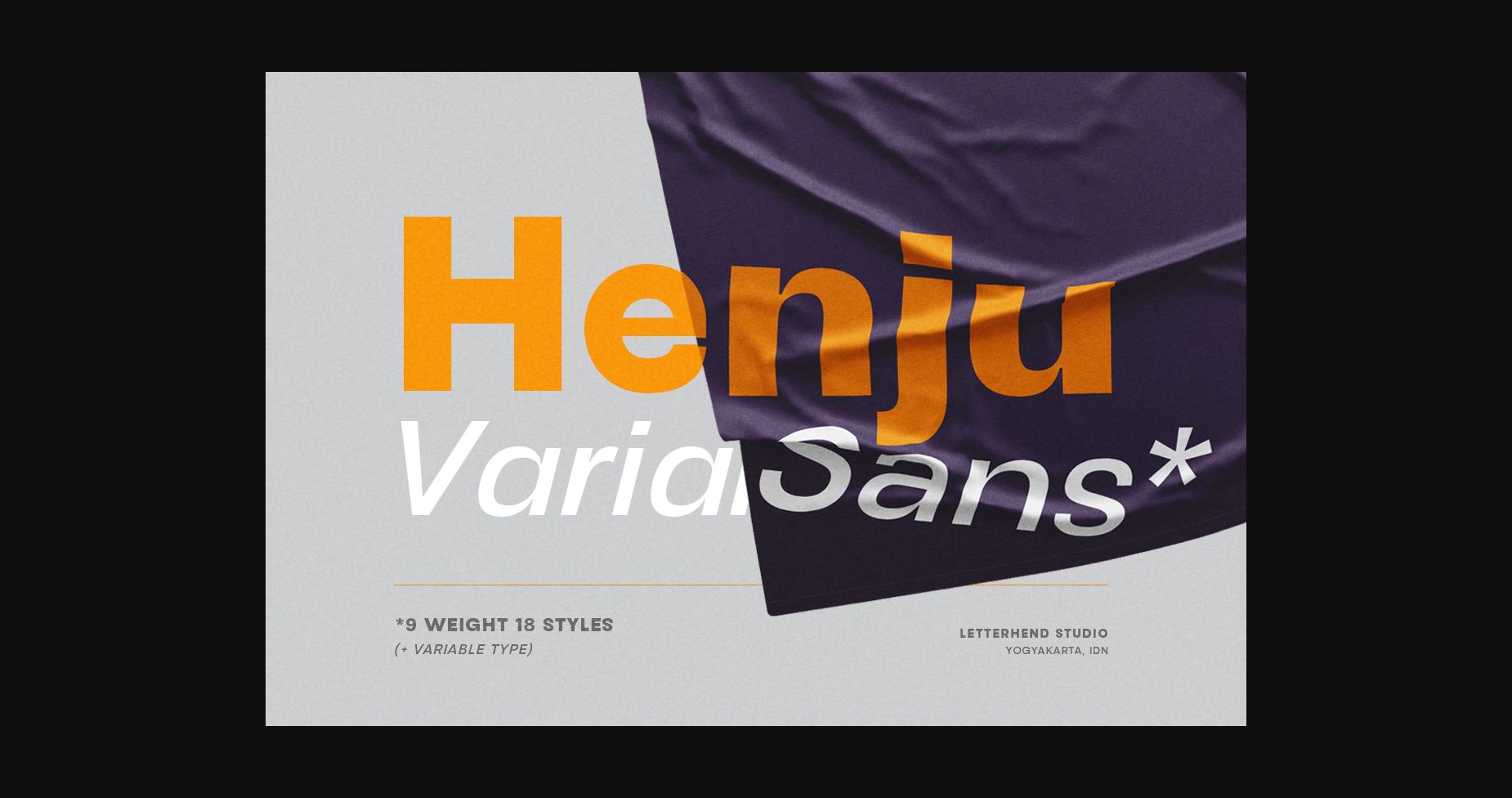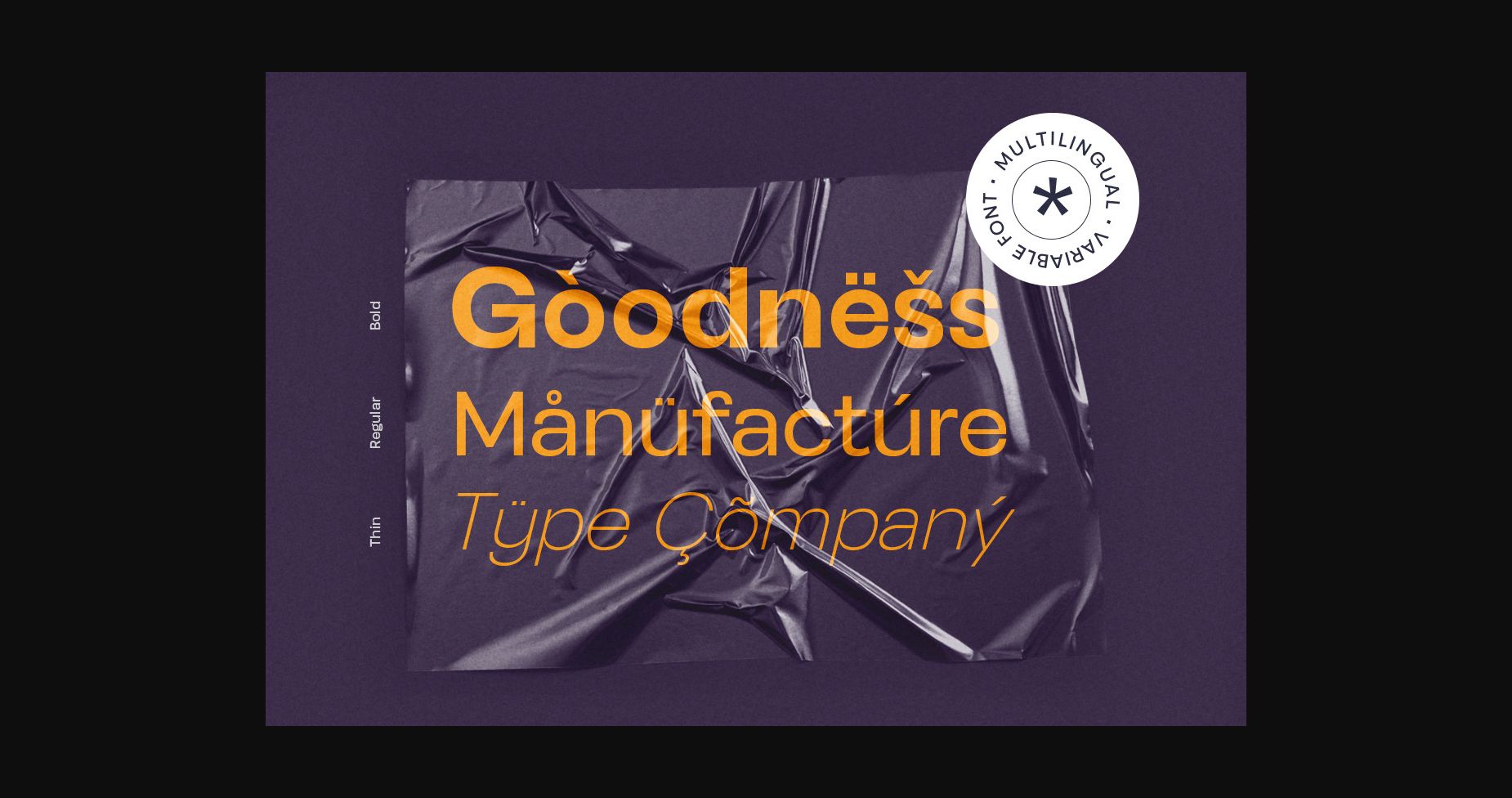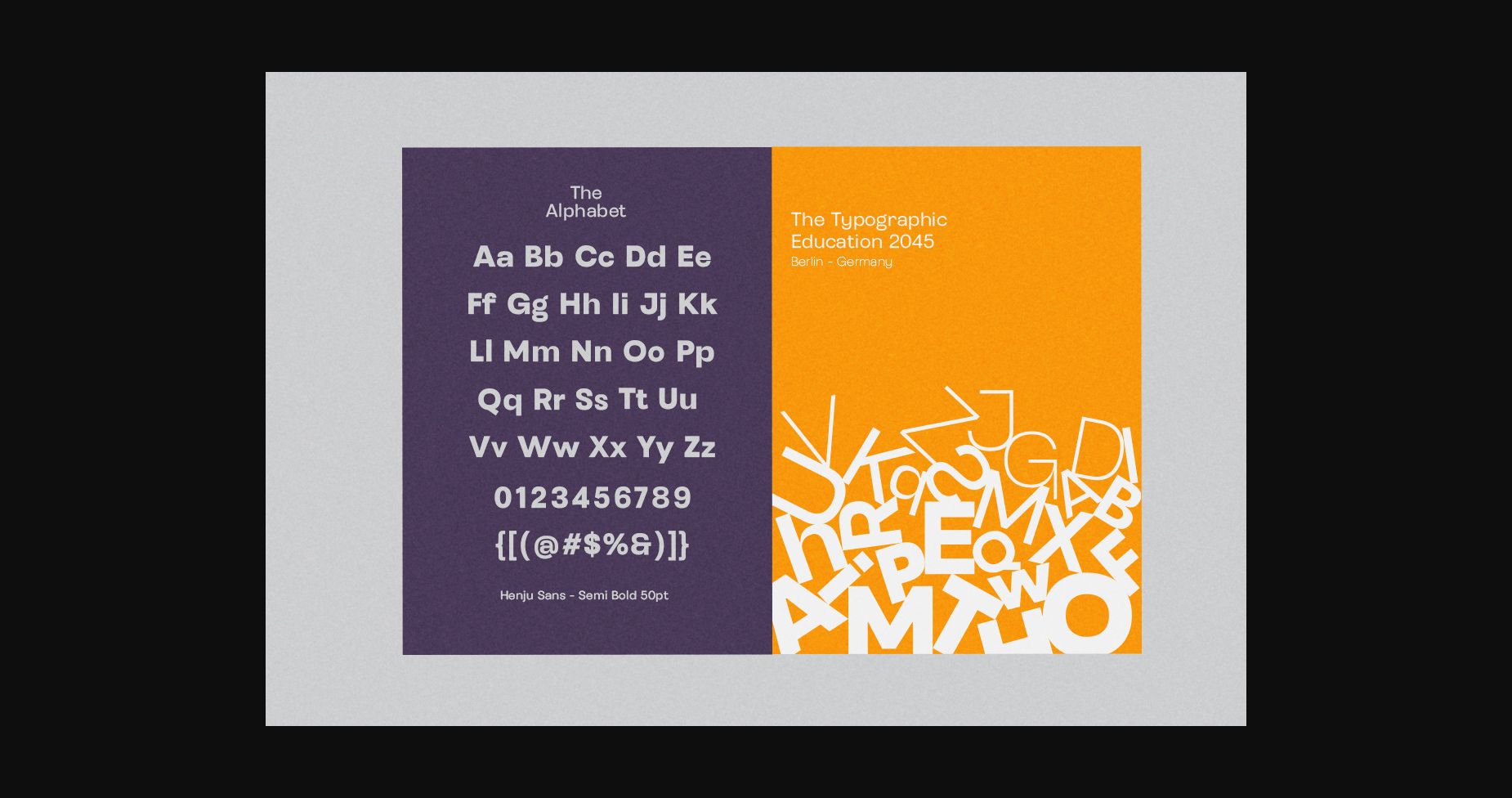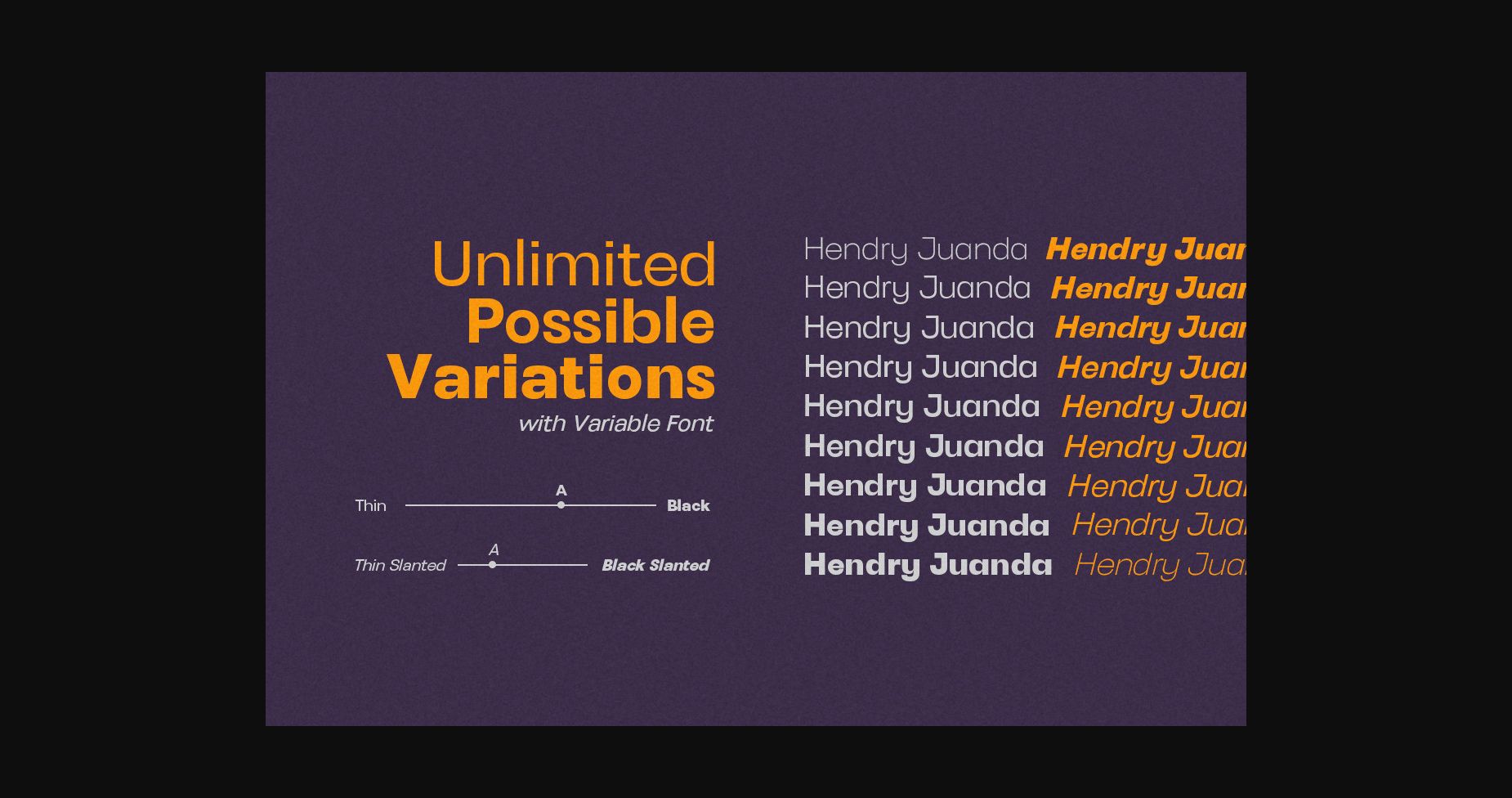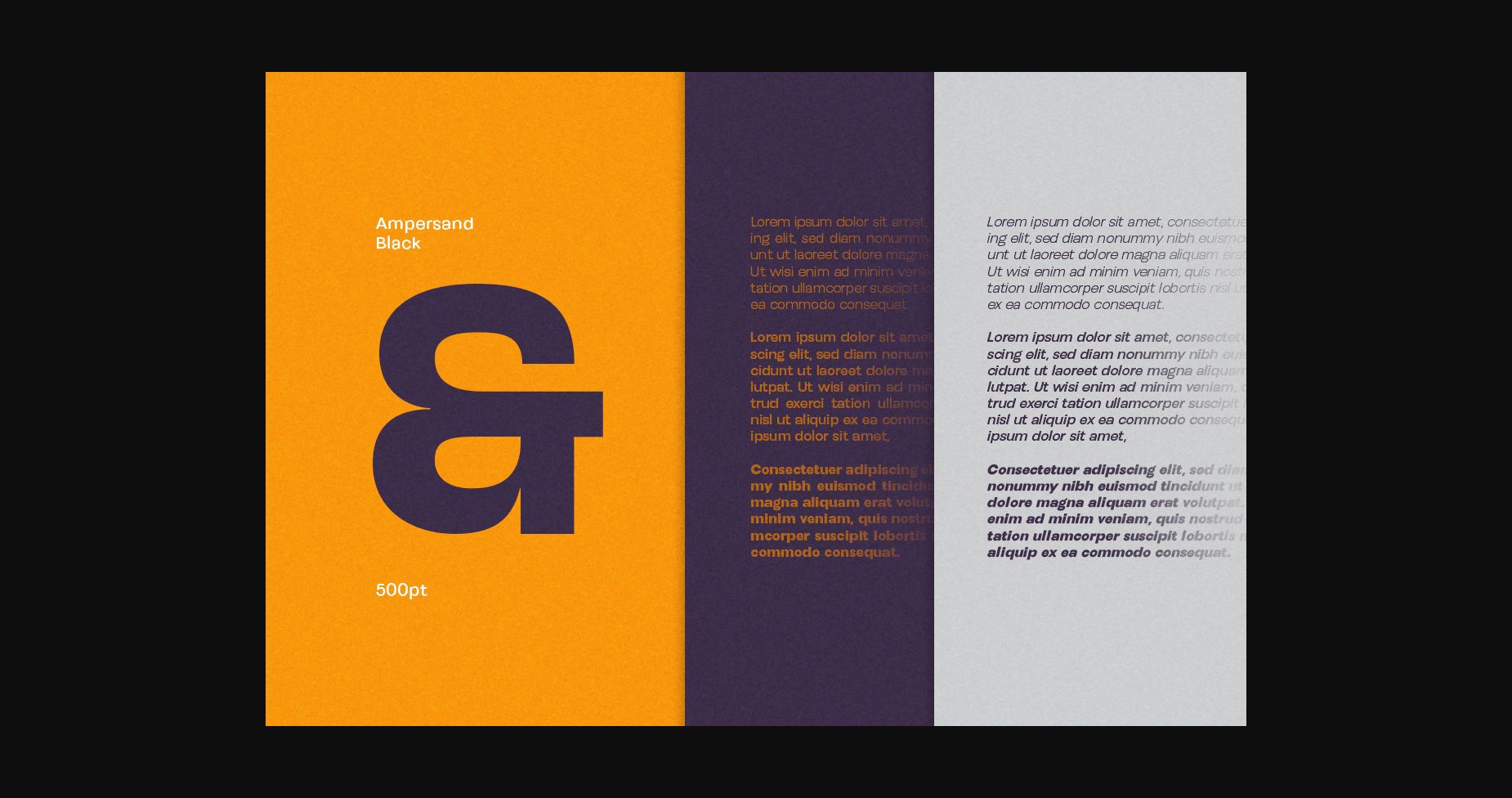
About Henju Font
Henju is a simple and modern sans serif font. It can easily be matched to an incredibly large set of projects, so add it to your creative ideas and notice how it makes them stand out!